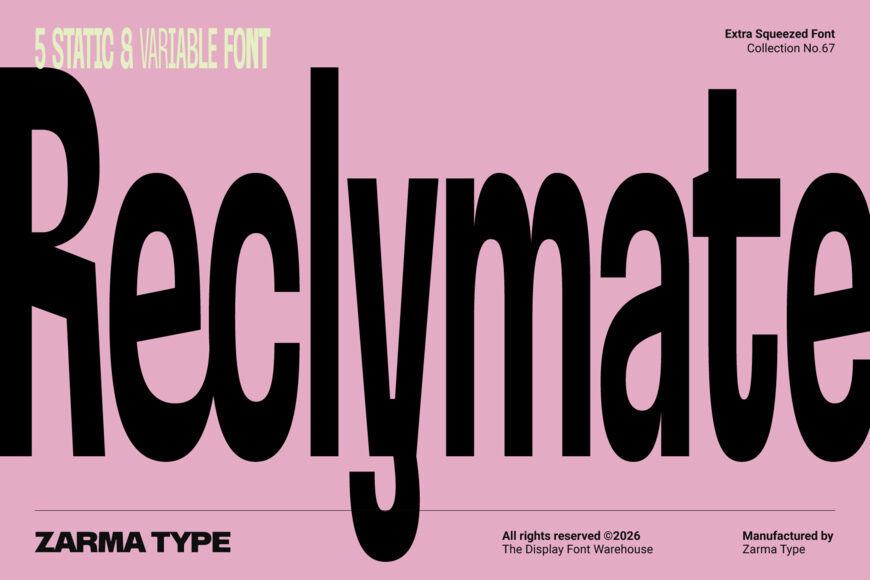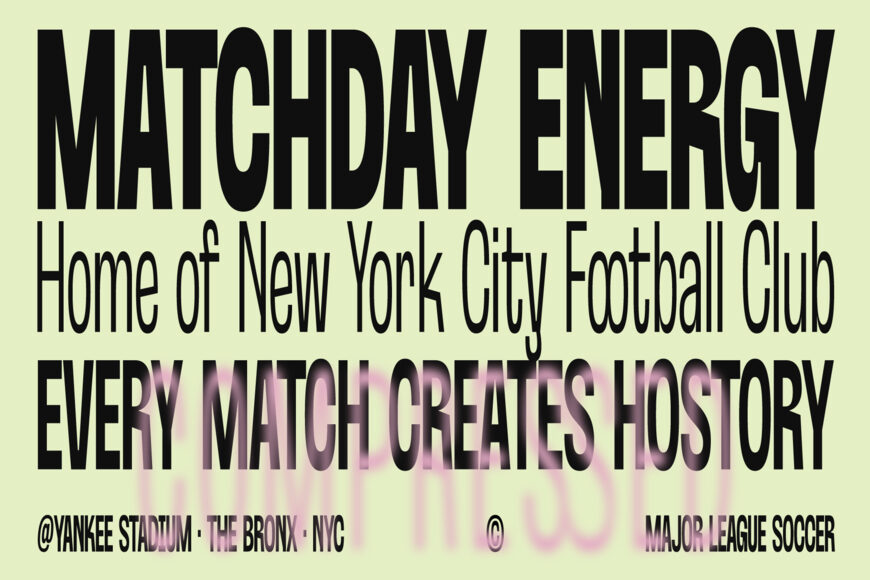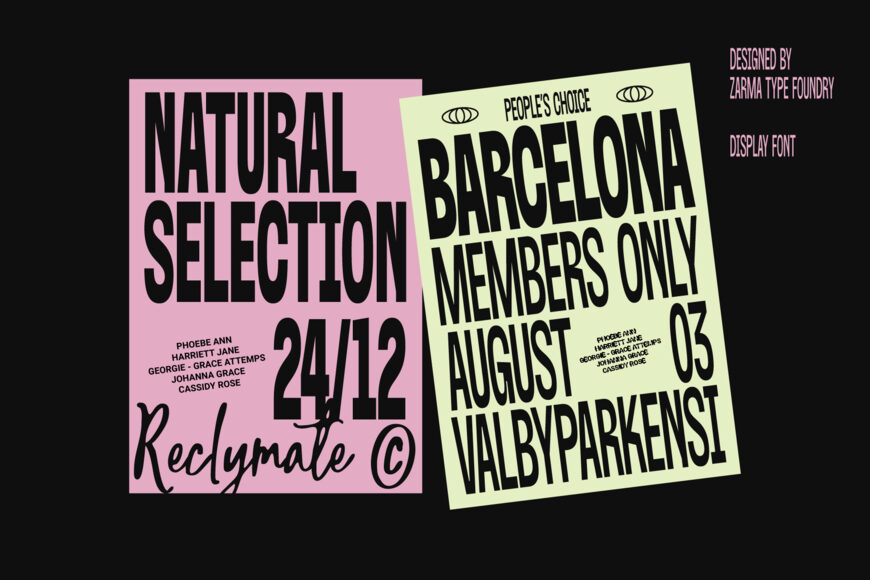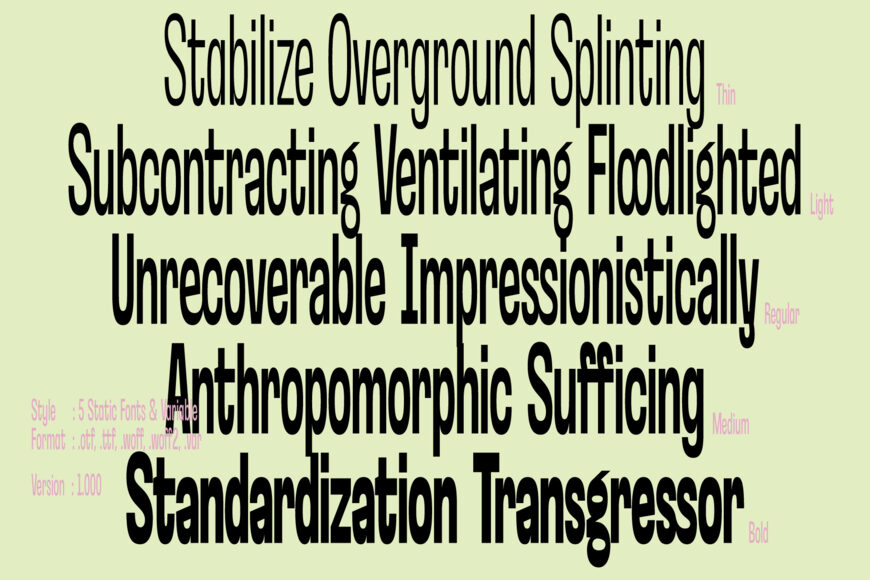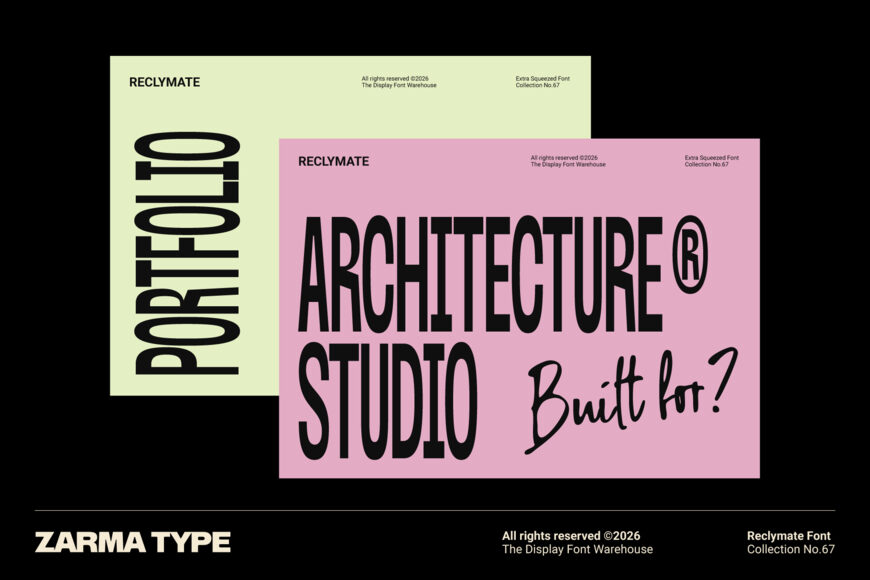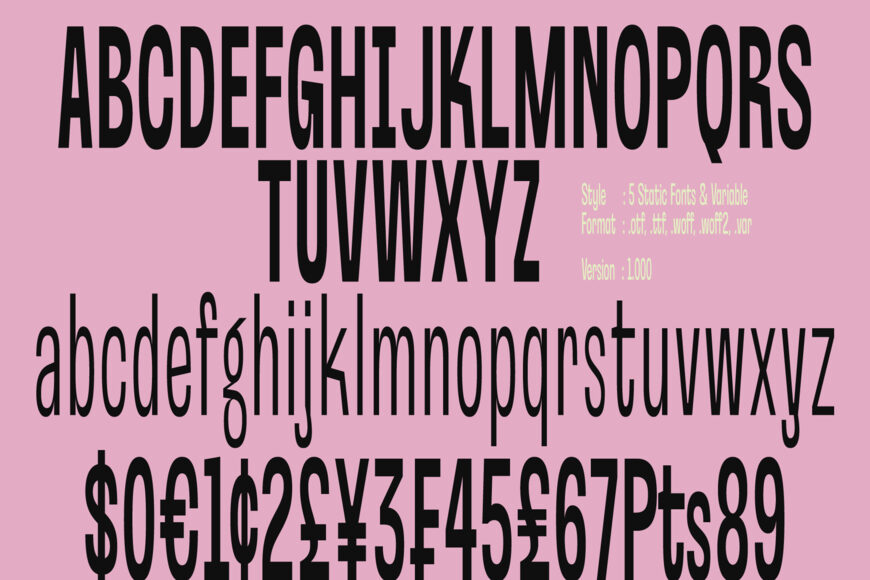
Reclymate is an extra condensed font built from the ground up with deliberately narrow proportions, elongated letterforms, and carefully controlled curves. Instead of digitally squeezing a normal-width typeface, every character is manually crafted to work naturally within its compressed structure. The result is a distinctive sans serif display font that feels tall, controlled, contemporary, and unmistakably expressive.
Reclymate includes five static weights—Thin, Light, Regular, Medium, and Bold—plus a variable font for greater flexibility across responsive and experimental typography. Its extreme proportions make it especially effective for oversized editorial headlines, posters, sports graphics, branding, packaging, and web design.